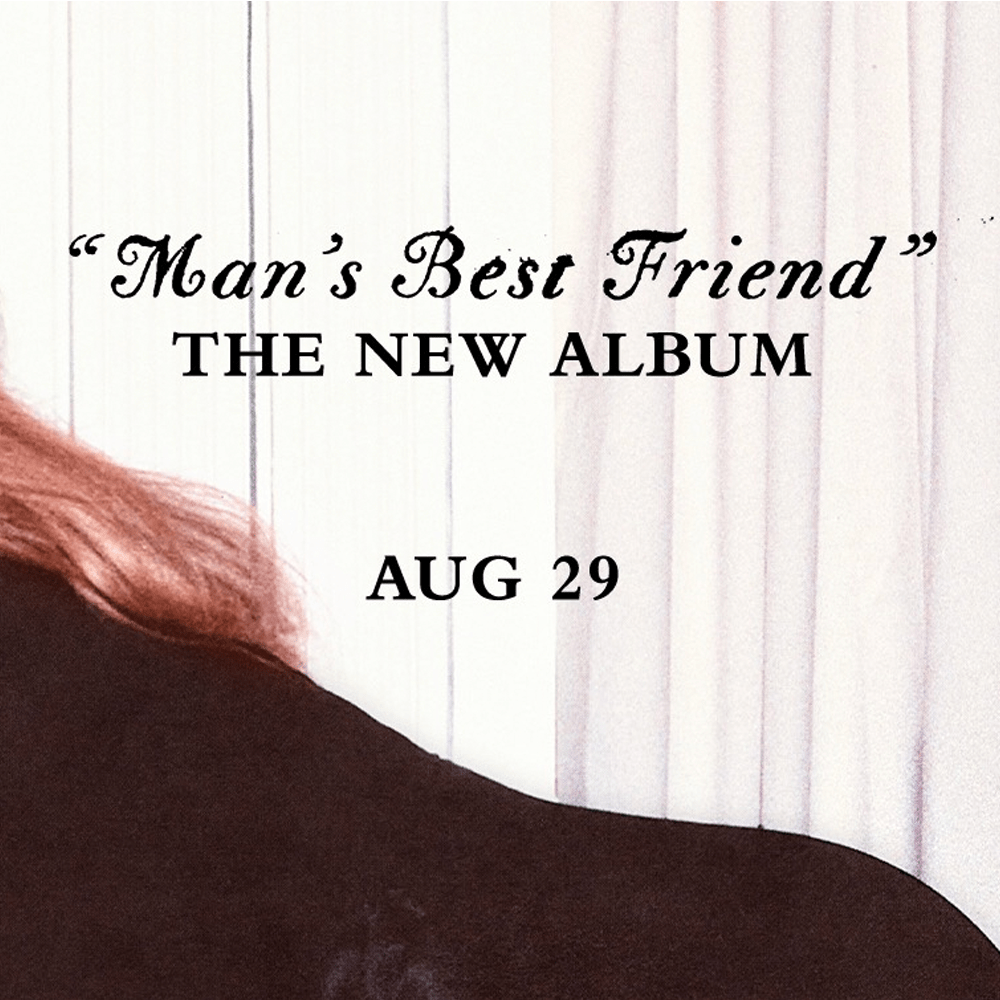
Man’s Best Friend Font
MusicSabrina Carpenter’s seventh studio album, Man’s Best Friend, is scheduled for release on August 29, 2025. The announcement follows the bold rollout of its lead single, “Manchild,” co-written and produced with Jack Antonoff.
The font for "Man's Best Friend" looks very similar to CAL Bodoni Terracina Italic by California Type Foundry, though it has been slightly eroded and features altered quotation marks.
The closest font we found for "The New Album" and "Sabrina Carpenter" is Handle Oldstyle Std Regular by Monotype.
Finally, the release-date text “Aug 29” is set in Bembo Bold, also by Monotype.